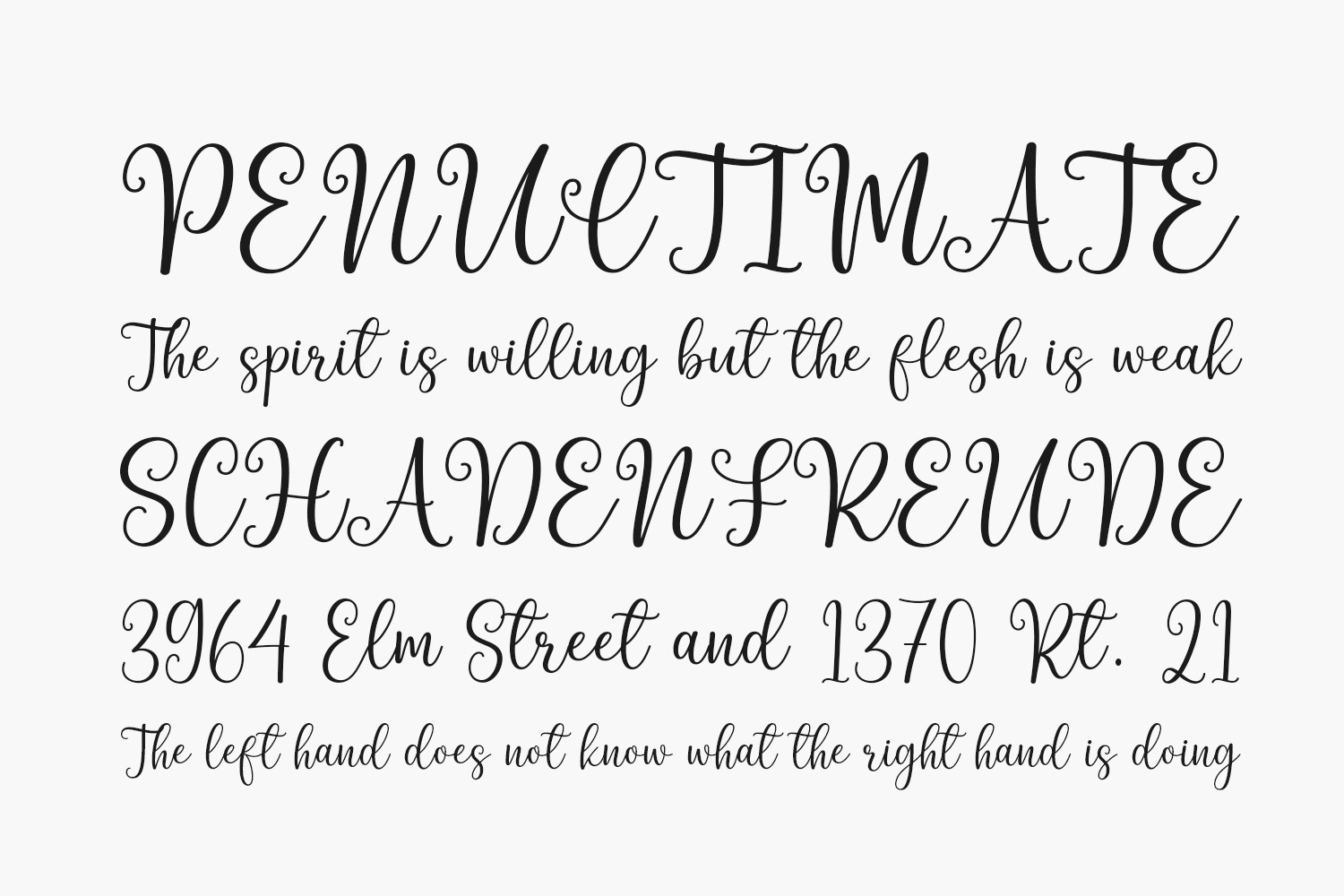
Beauty Boutique Free Font is a chic, refined script font that emanates sophistication and elegance. Its stylish alternates and ligatures make this font the perfect match for any project. Beauty Boutique Free Font was designed by AV Type and is free for personal use only. Please purchase the full version for commercial use.